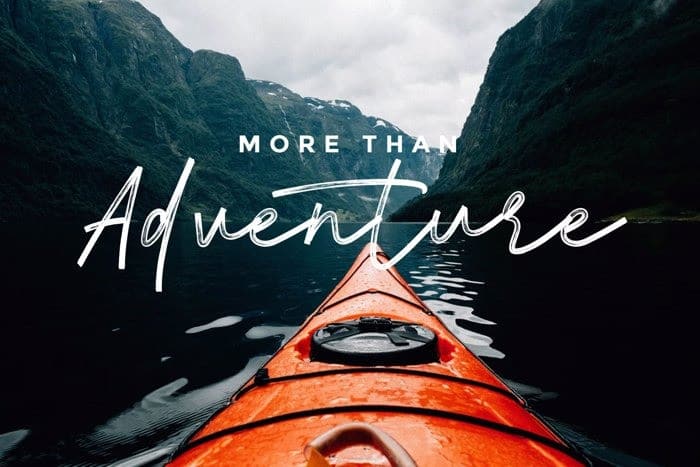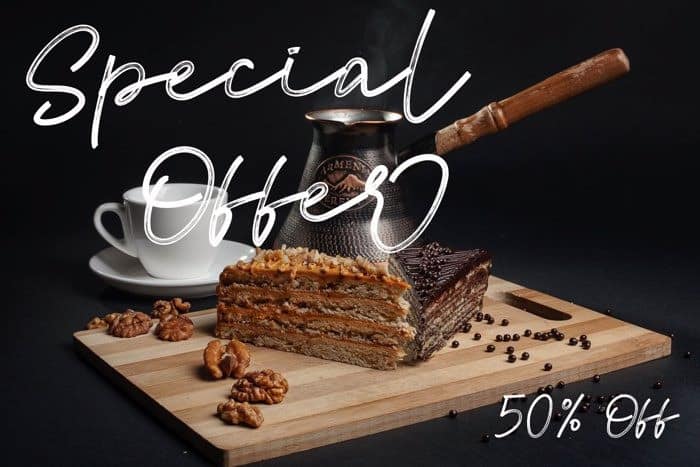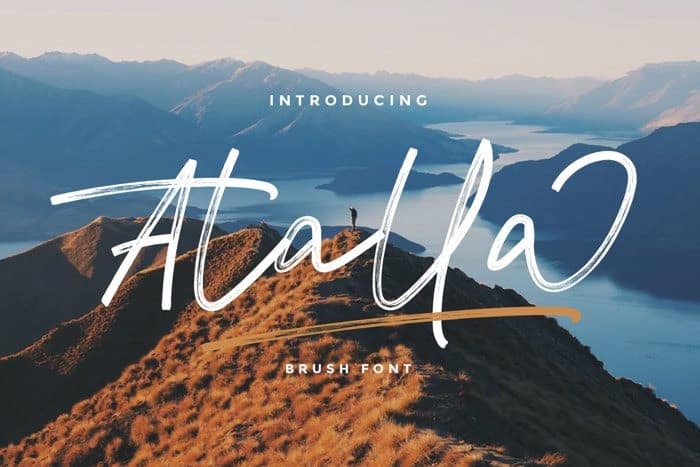
Atalla Brush Font
Atalla Brush Font is a grungy, hand-drawn brush font supplied in two styles with additional underlines and paint spills. Atalla Brush Font is designed and shared by Rantautype. Festany is script font with handlettering brush style, with opentype feature include of the font. Suitable for design, element design, wedding, event, t-shirt, logo, badges, sticker, and awesome work, etc…